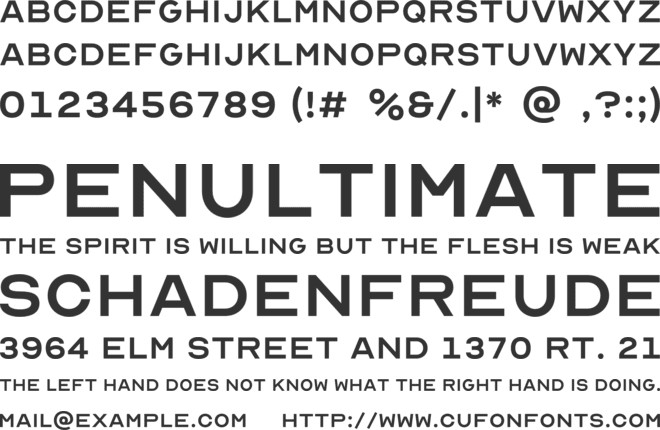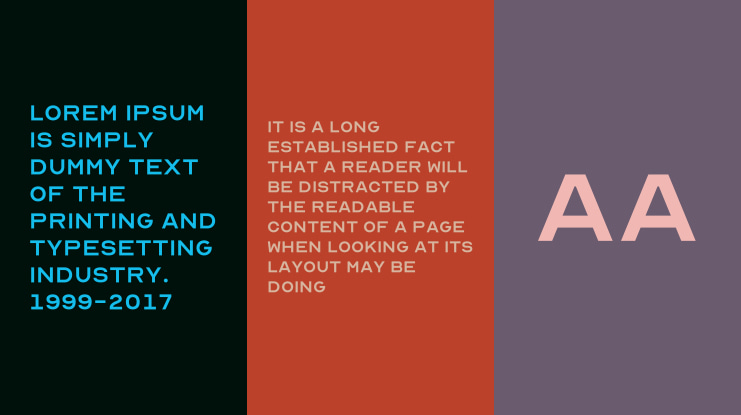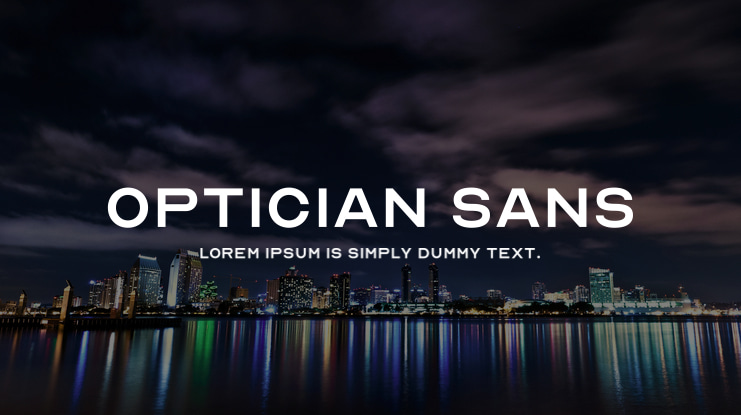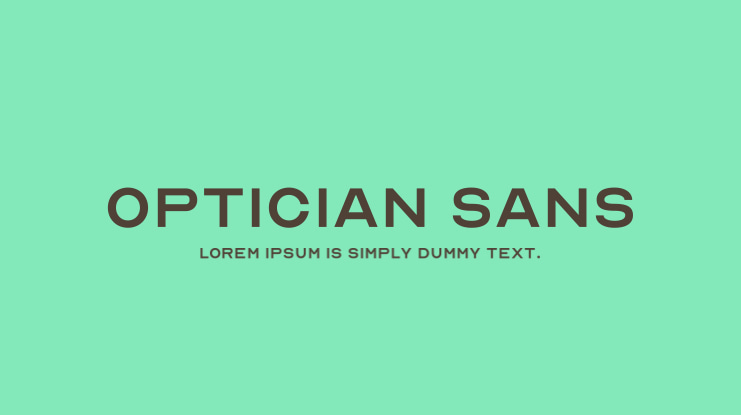
Optician Sans Font
Optician Sans is a free typeface based on the 10 historical optotype letters seen on millions of eye charts around the world, finalising the work that was started decades ago.
The universal optometrist eye charts have been around for decades and seen by millions of people worldwide. The first standardised chart was created by Hermann Snellen in the Netherlands in 1862, before Louise Sloan designed a new set in 1959. These letters make up the now universal chart for testing visual acuity, also known as the LogMAR chart, which was developed by National Vision Research Institute of Australia. But ever since 1959, they have consisted of only 10 letters.
With Optician Sans, we have finalized the work that was started decades ago by creating a fully functional typeface based on the historical optotype letters, including numbers and special characters.